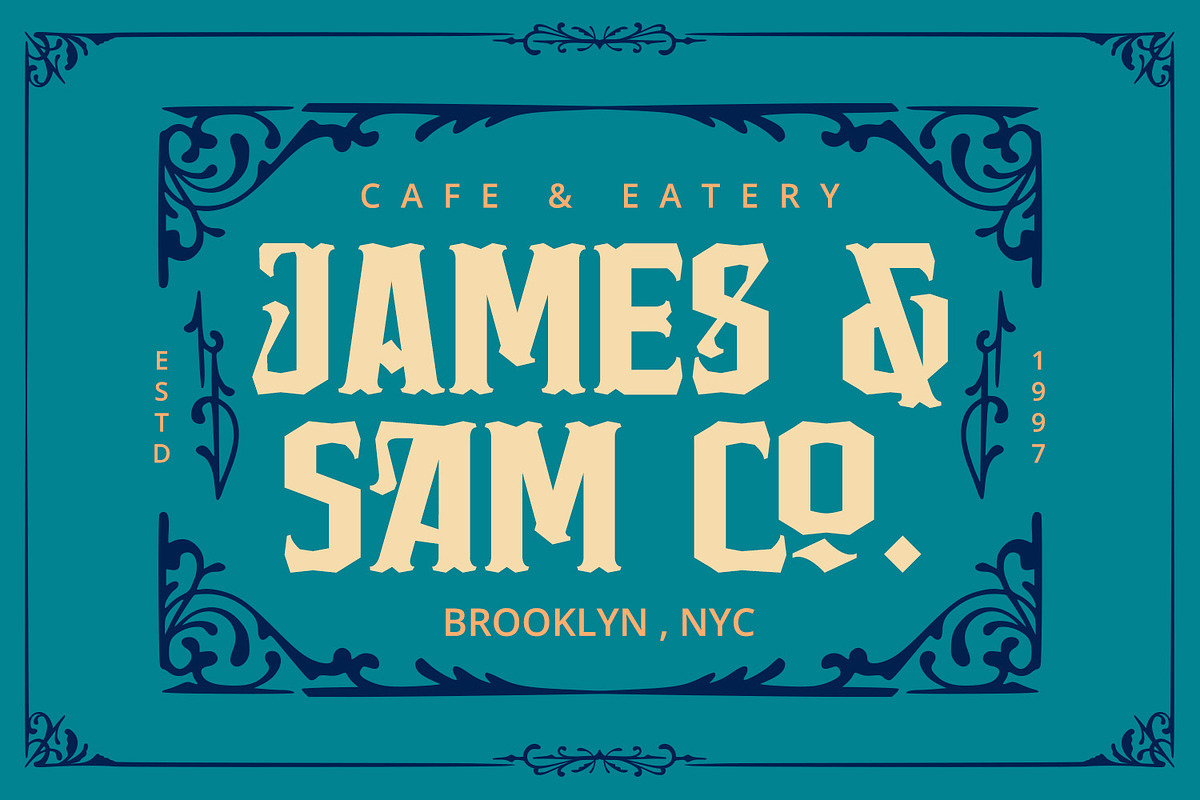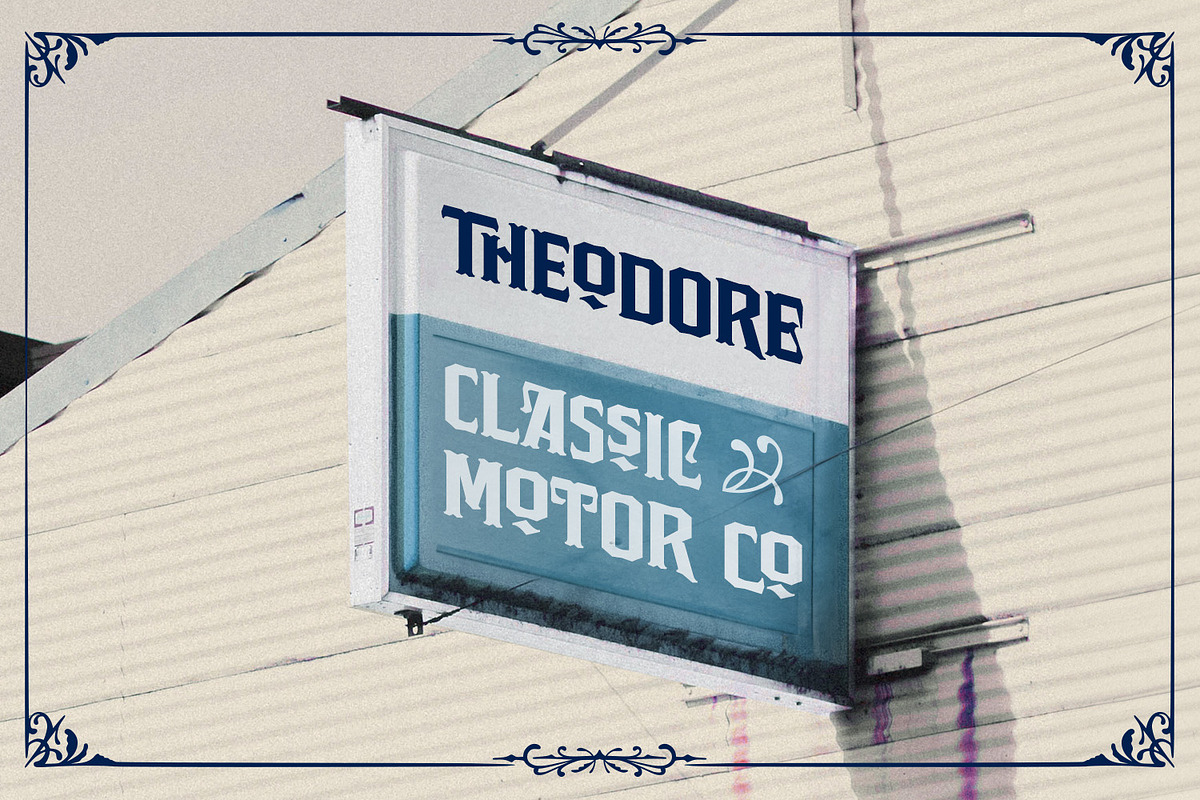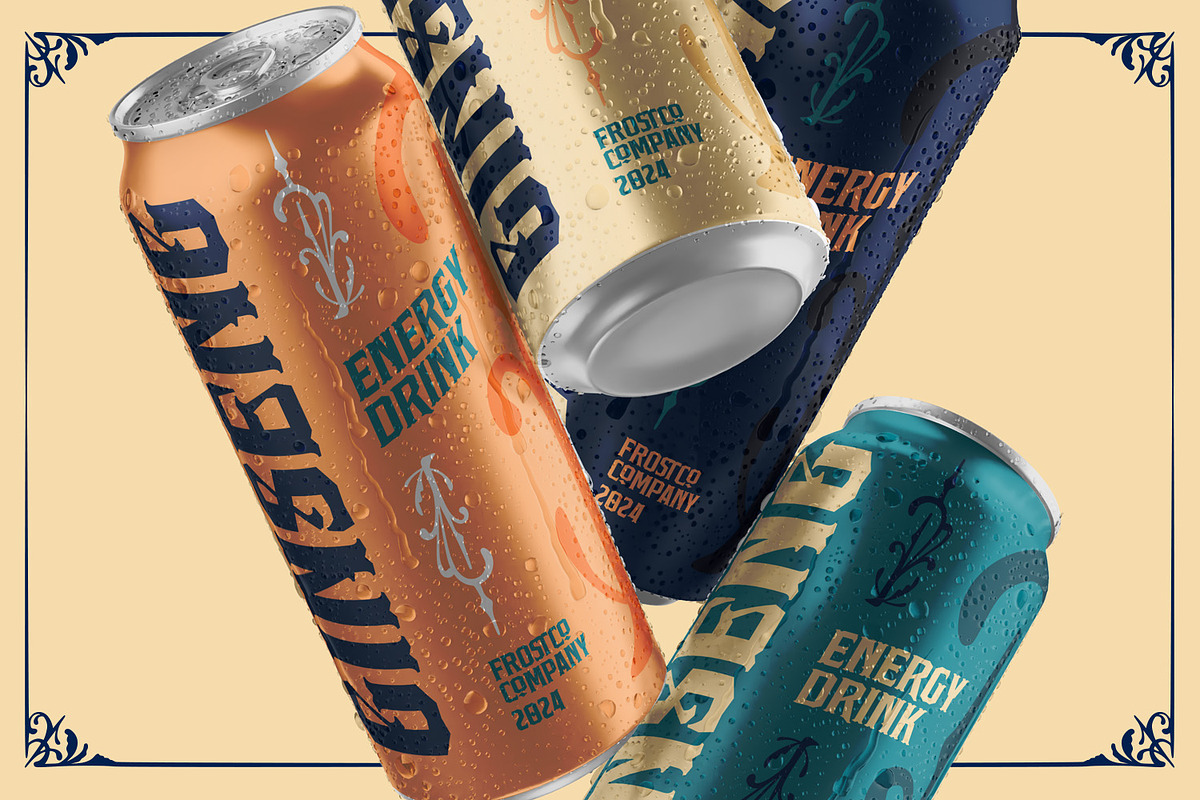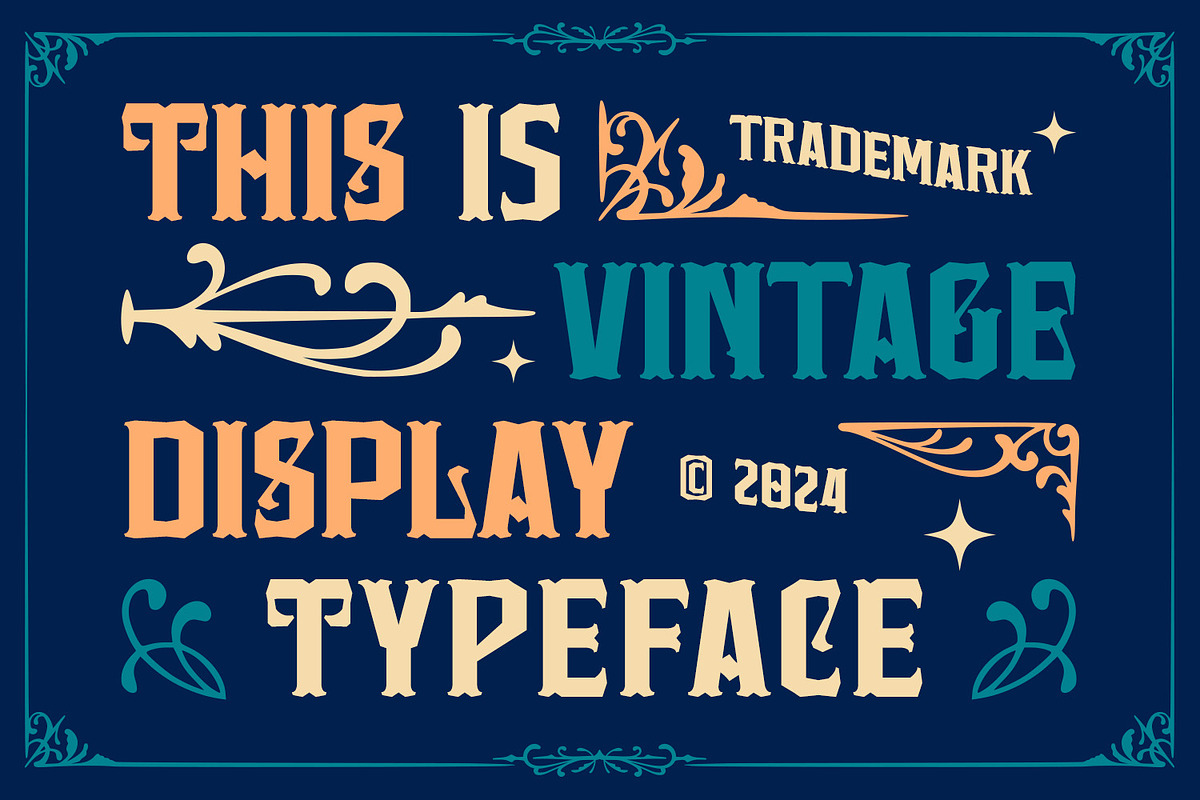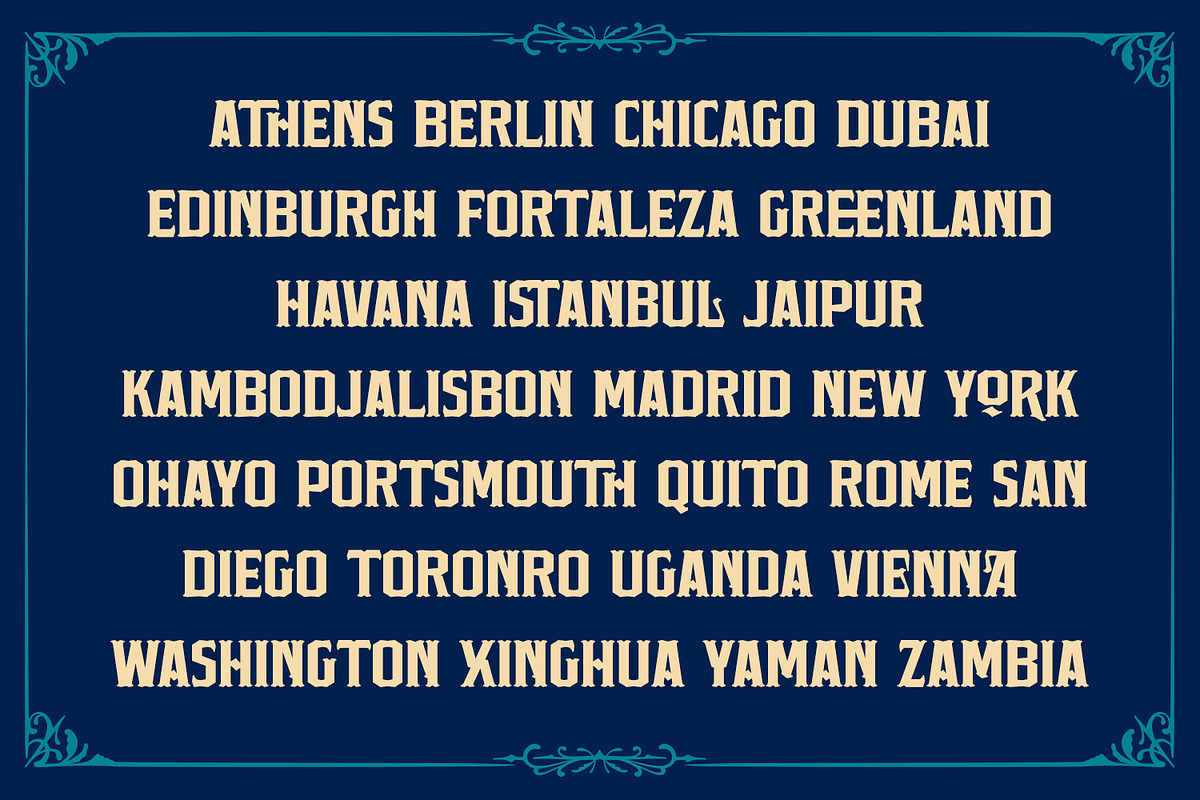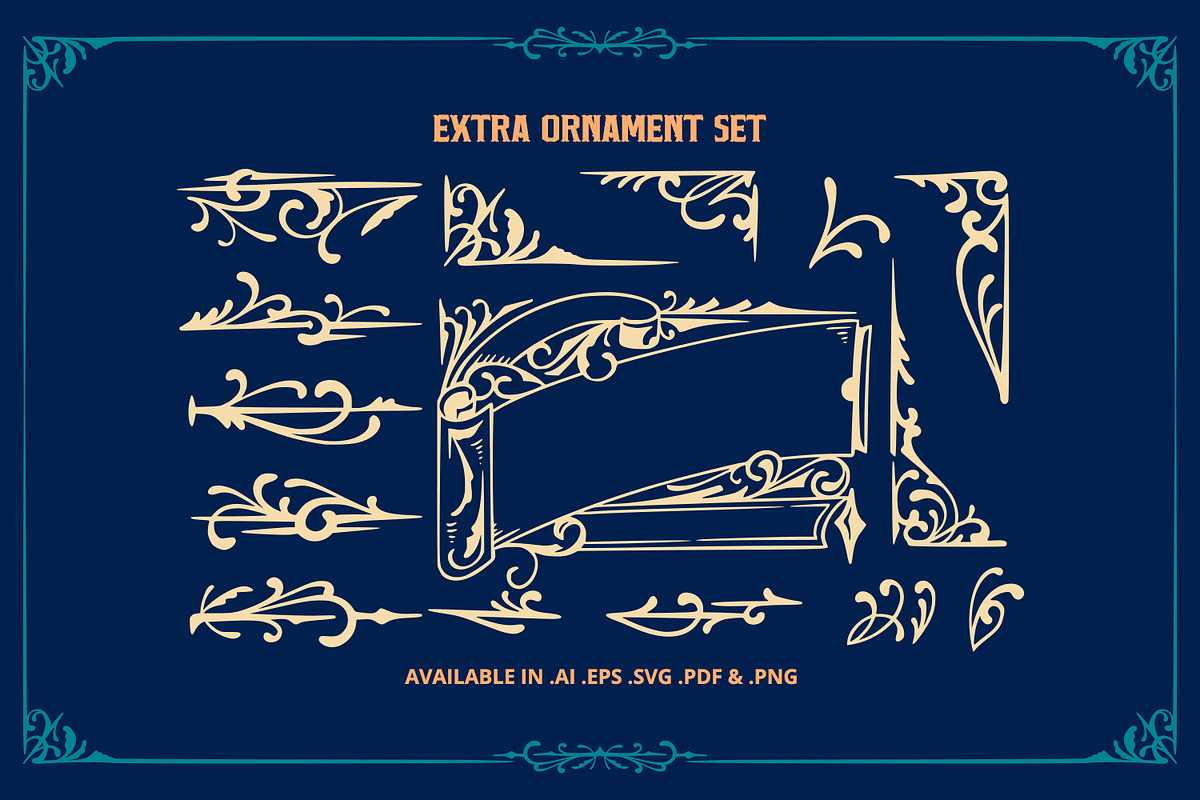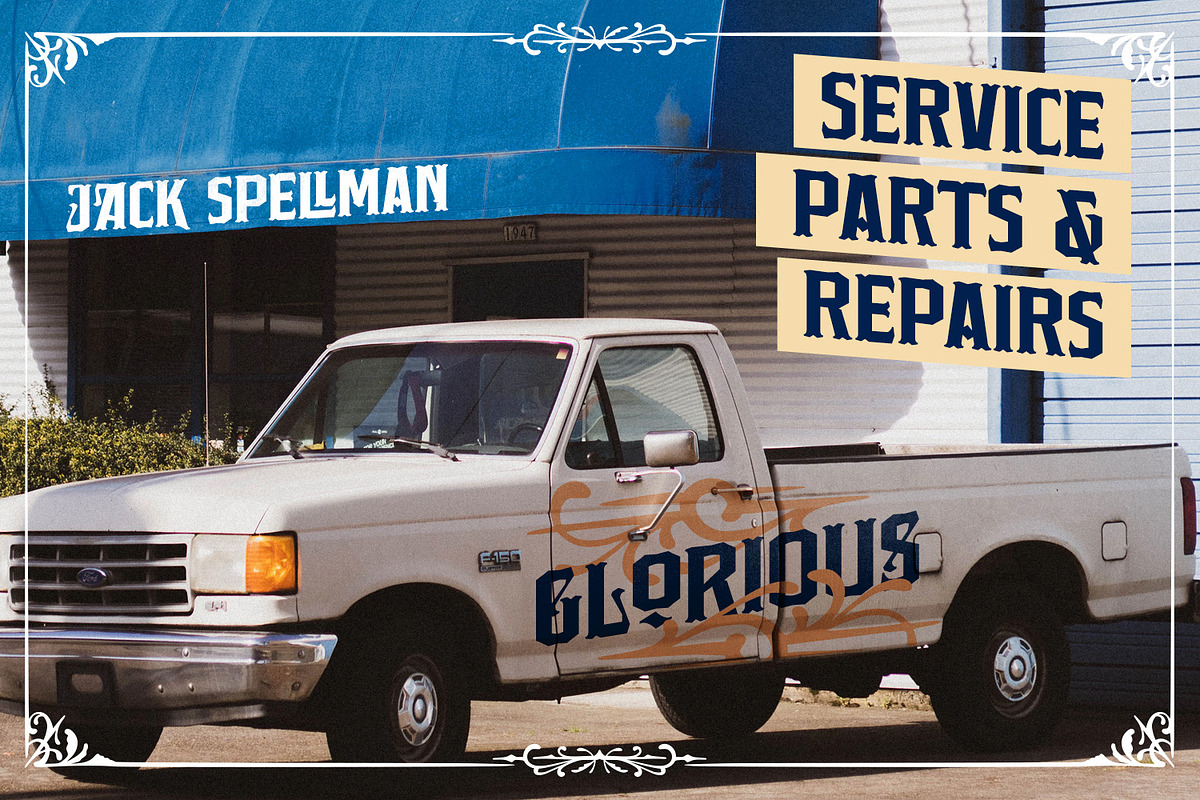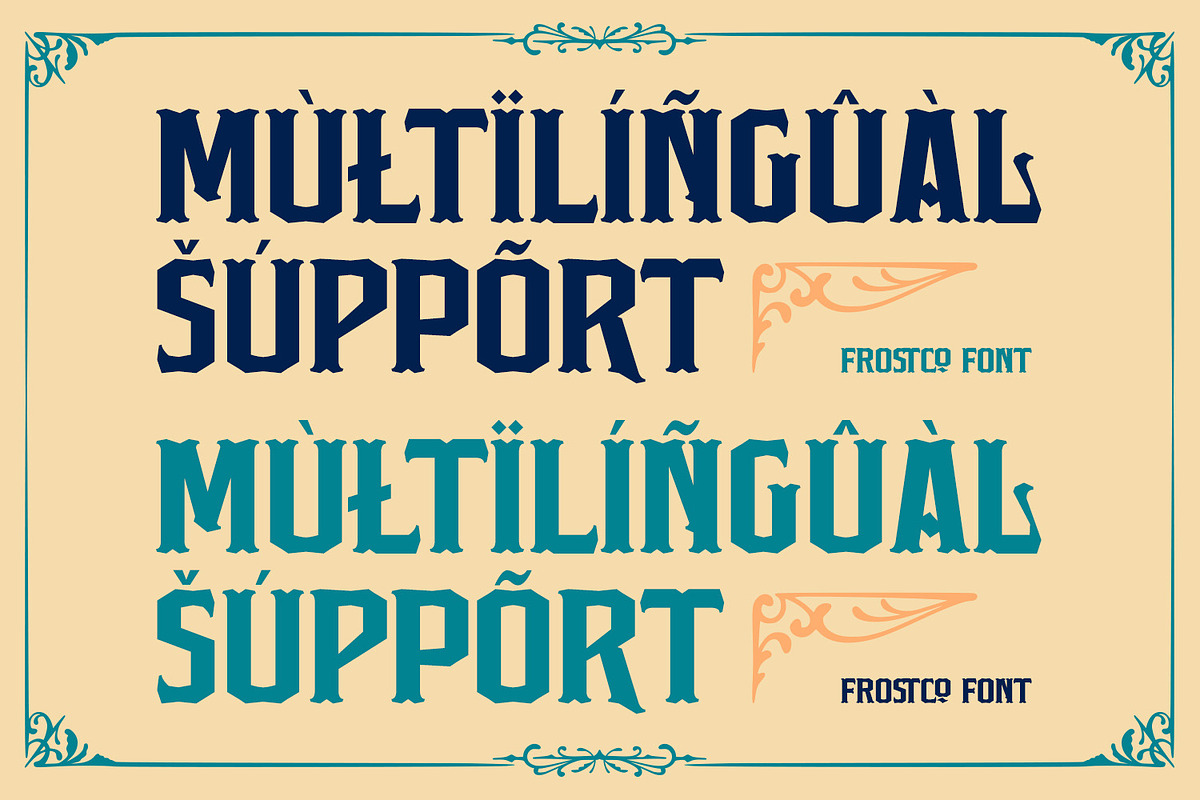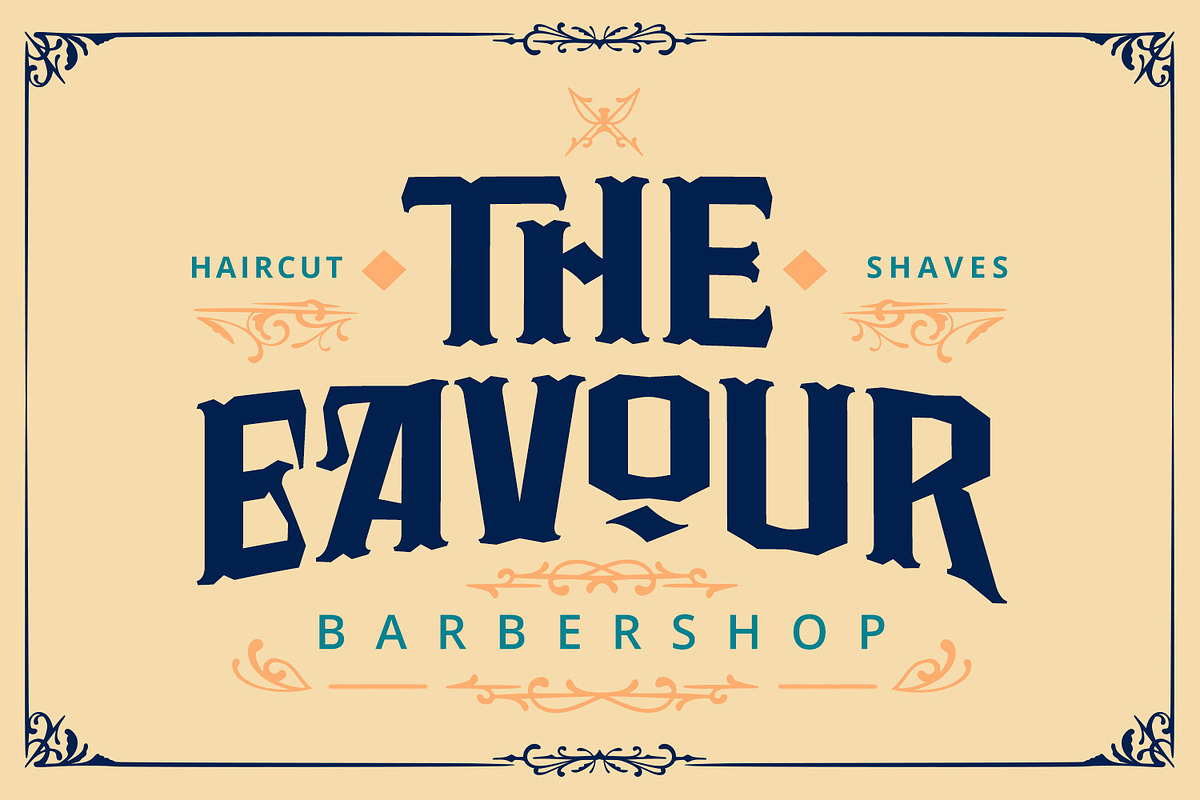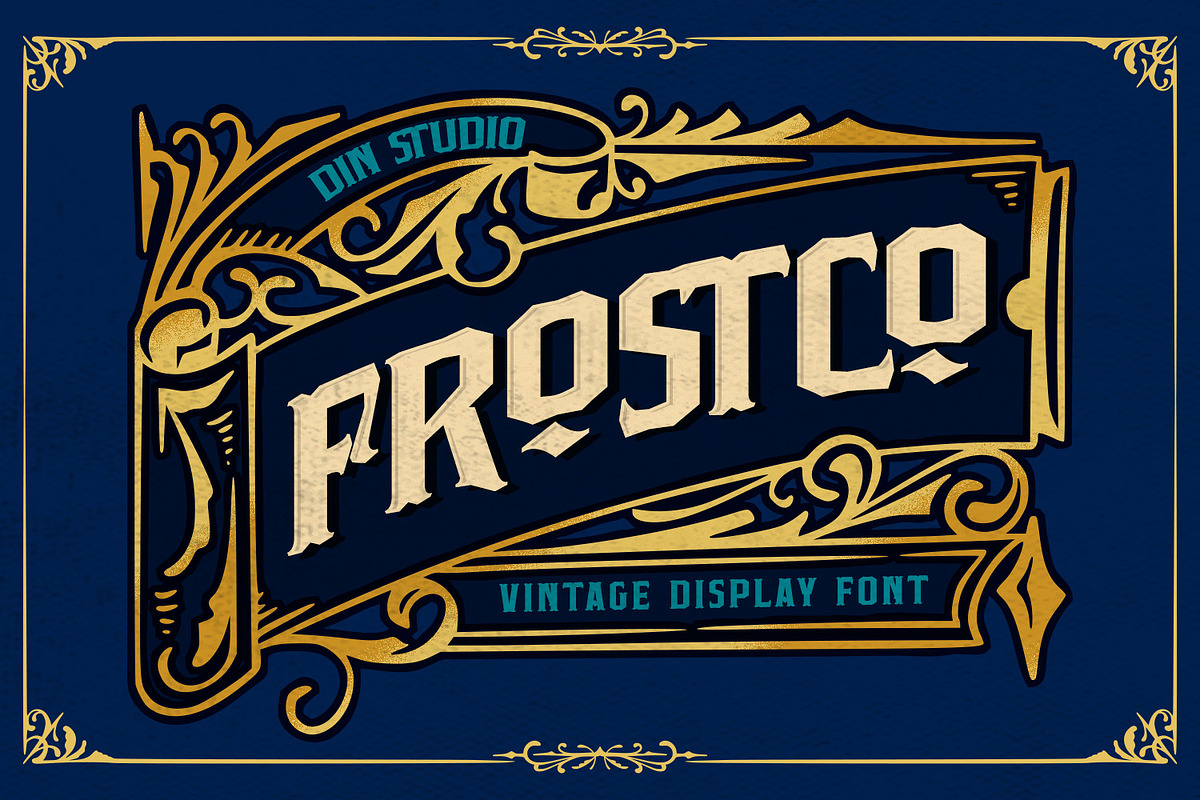
Frostco
Introducing Frostco – a bold, vintage-style display font that captures attention with its rugged charm. Crafted in all caps with a strong, bold weight, Frostco stands out with its distinctive outline, which is made in subtle curves and irregularities instead of straight lines. This unique touch adds an authentic, handcrafted feel, perfect for retro-inspired vibes. As an extra, this font gives ornaments. In addition, enjoy the features here.
Frostco fits in logos, posters, flyers, branding materials, print media, editorial layouts, and many more designs. Find out more ways to use this font by taking a look at the font preview.